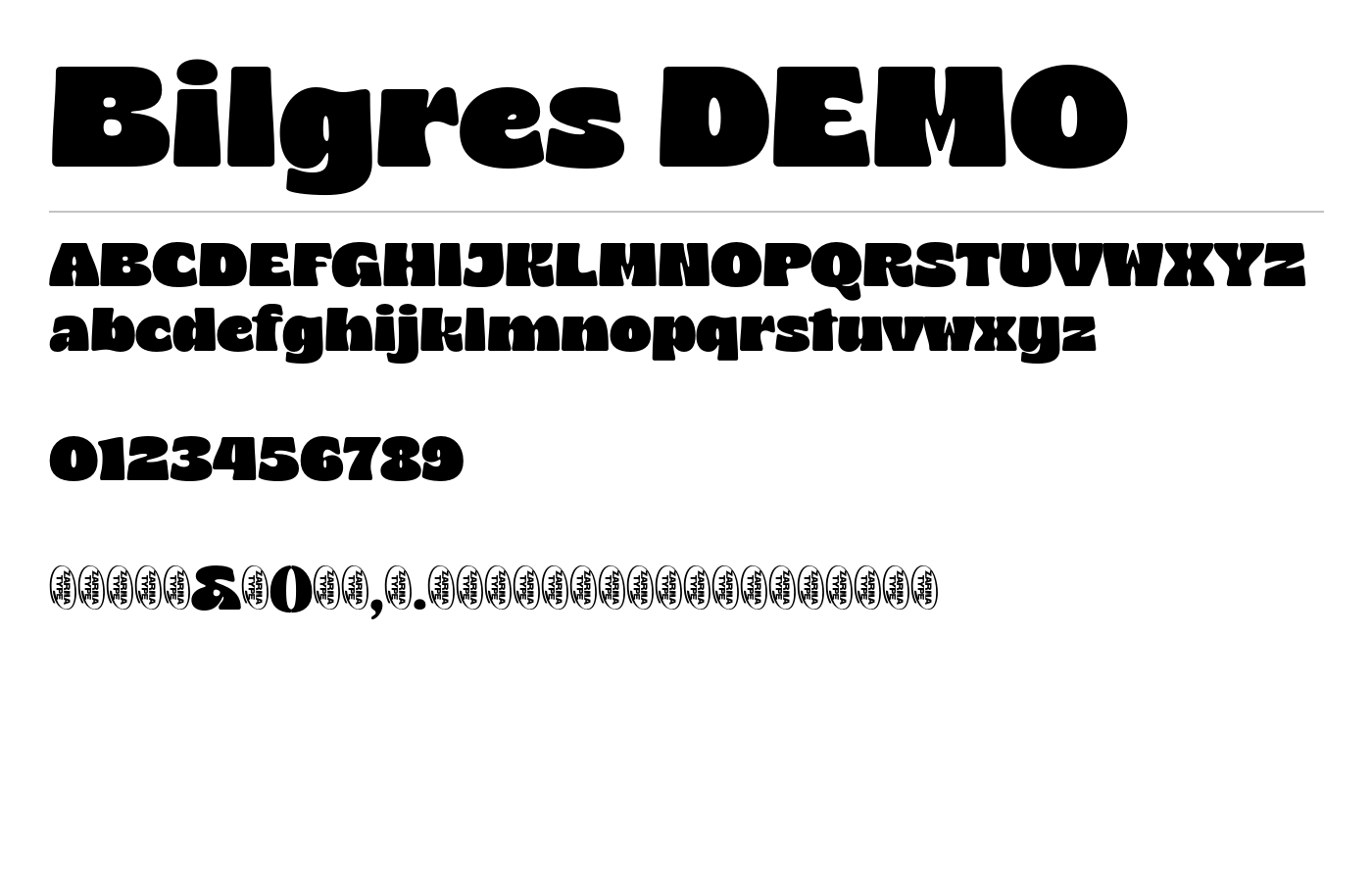
Bilgres DEMO is a bold, playful sans serif font with a chunky, rounded style that exudes a friendly and approachable vibe. Its thick strokes and wide, sturdy letterforms make it perfect for headlines, posters, and branding that aims to grab attention with a fun and energetic personality. This font works well in creative, informal contexts where a strong and unique voice is desired.
Bilgres DEMO Font
About Bilgres DEMO Font
| Font family | Bilgres DEMO Font |
| Designer | Azzam Ridhamalik |